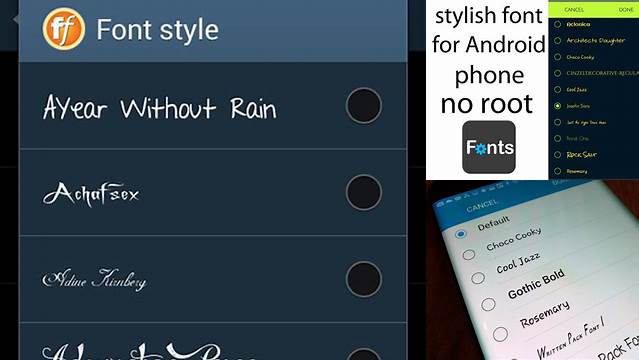
Free Fonts For Android: Download & Customize Your Phone
Introduction: Level Up Your Android with Awesome Free Fonts
Hey guys! Ever feel like your Android phone's default font is a little…meh? You're not alone! Customizing your phone is a super fun way to express yourself, and changing the font is one of the easiest and most impactful things you can do. In this article, we're diving deep into the world of free fonts for Android, showing you exactly how to find, download, and install them. We'll cover everything from the best font sources to step-by-step instructions, so you can give your phone a fresh new look in no time. Think of it as a mini-makeover for your digital life! The right font can seriously elevate your entire user experience, making everything from reading emails to browsing social media a little bit more enjoyable. Free fonts offer a fantastic way to inject personality and style into your device without spending a dime. Whether you're into sleek and modern designs, playful and quirky styles, or classic and elegant looks, there's a font out there for you. So, let's get started on this exciting journey of transforming your Android phone's typography and making it truly your own! We'll explore various options, discuss potential pitfalls, and provide practical tips to ensure a smooth and satisfying font-customization experience. Get ready to unleash your inner designer and give your Android a unique visual flair. Remember, the best part about downloading free fonts is the freedom to experiment and find the perfect match for your personality and style. So, let’s jump right in and explore the fantastic world of Android typography!
Why Customize Your Android Fonts?
Okay, so why even bother changing your font? It's a fair question! Customizing your Android fonts can make a huge difference in how you interact with your device every day. It's not just about aesthetics; it's about creating a personalized experience that reflects your unique style and preferences. Imagine being able to read your favorite articles in a font that's easy on your eyes and visually appealing, or crafting text messages that truly express your personality. Customizing fonts is more than just a cosmetic change; it's a way to make your phone feel more like you. Think about it – you change your wallpaper, your ringtone, even the case on your phone. Why not the font? A new font can breathe fresh life into your device, making it feel like you've upgraded without actually buying a new phone. It’s a simple yet powerful way to refresh your daily digital interactions. Beyond the aesthetic appeal, custom fonts can also improve readability. If you struggle with the default font, switching to a clearer, more legible option can make a world of difference. This is especially important for those who spend a lot of time reading on their phones, whether it's emails, e-books, or news articles. The right font can reduce eye strain and make reading a much more comfortable experience. Moreover, exploring free fonts allows you to express your individuality. Your phone is an extension of yourself, and the font you choose can be a subtle yet effective way to showcase your personality. Are you a fan of minimalist designs? There's a sleek, sans-serif font for that. Do you prefer a more whimsical and playful vibe? There are plenty of quirky and fun fonts to choose from. Customizing your fonts is a way to add a personal touch to your device and make it stand out from the crowd. Plus, let’s be honest, it's just plain fun to experiment with different fonts and see how they transform your phone’s look and feel! The possibilities are endless, and the best part is that you can change your font as often as you like, keeping your phone feeling fresh and exciting.
Where to Find Free Fonts for Android
Now that we've established why you should customize your fonts, let's talk about where to find those awesome free fonts for Android. The good news is, there are tons of resources available, from dedicated font apps to websites brimming with typography gold. But with so many options, it's important to know where to look and how to ensure you're downloading safe and high-quality fonts. One of the most convenient ways to find free fonts is through apps available on the Google Play Store. Apps like HiFont, iFont, and Fontasy offer a vast library of fonts that you can easily browse and install with just a few taps. These apps often have user-friendly interfaces and allow you to preview fonts before applying them, which is super helpful. However, it's crucial to read reviews and check the app's permissions before installing anything. Look for apps with good ratings and a large number of downloads, and be wary of apps that request excessive permissions. Another fantastic resource is the world wide web! Websites like Google Fonts, Dafont, and Fontspace are treasure troves of free fonts, offering a diverse range of styles and designs. Google Fonts, in particular, is an excellent choice because it provides high-quality, open-source fonts that are optimized for web and mobile use. Dafont and Fontspace are also great options, but it's essential to exercise caution when downloading from these sites. Always download fonts from reputable sources and be sure to scan any downloaded files with a virus scanner before installing them. When browsing font websites, pay attention to the licensing information. Most free fonts are licensed for personal use, but some may have restrictions on commercial use. If you plan to use a font for anything beyond personal projects, make sure you understand the licensing terms. Additionally, consider joining online communities and forums dedicated to typography and design. These communities are often a great place to discover new fonts, get recommendations, and even find hidden gems that you might not come across otherwise. Members often share their favorite fonts and provide feedback on the quality and usability of different options. Remember, finding the perfect free font is a bit like treasure hunting – it takes a little exploration, but the reward of a beautifully customized Android phone is definitely worth the effort!
Best Practices for Choosing and Using Fonts
Choosing the right font is about more than just picking something that looks cool. It's about selecting a font that's both aesthetically pleasing and functional. A great font can enhance your phone's user experience, while a poorly chosen font can be distracting and even difficult to read. So, what are some best practices to keep in mind when selecting and using fonts on your Android device? First and foremost, consider readability. A beautiful font is useless if you can't easily read it. Look for fonts that have clear, well-defined characters and sufficient spacing. Avoid fonts that are overly stylized or have thin, delicate strokes, as these can be difficult to read on small screens. Think about the overall style and tone you want to convey. Different fonts evoke different emotions and associations. A sleek, sans-serif font might be perfect for a professional or modern look, while a playful, handwritten font might be better suited for a more casual or creative vibe. Choose a font that aligns with your personality and the way you use your phone. It’s also a good idea to consider the font's legibility across different sizes. Some fonts look fantastic at large sizes but become blurry or illegible when scaled down. Before applying a font system-wide, preview it in different sizes to make sure it remains readable. Pay attention to the font's kerning and leading. Kerning refers to the spacing between individual letters, while leading is the spacing between lines of text. A well-designed font will have consistent kerning and leading, making the text look balanced and easy to read. Avoid fonts with inconsistent spacing, as this can make the text look cluttered and unprofessional. Don't be afraid to experiment, but also don't overdo it. It's tempting to try out every font you come across, but too much variety can create a chaotic and disjointed look. Stick to a few fonts that you really love and use them consistently throughout your device. Also, keep in mind that less is often more. A clean, simple font can be just as effective as a more elaborate one. And finally, remember that font customization is a personal preference. What looks good to one person might not appeal to another. The most important thing is to choose a font that you enjoy using and that makes your phone feel more like you. So, have fun exploring free fonts, experiment with different styles, and find the perfect typography to express your unique personality!
Conclusion: Embrace the Freedom of Font Customization
So, there you have it! We've covered everything you need to know about free fonts download for Android phone, from finding the perfect font to installing it and troubleshooting common issues. Customizing your fonts is a fantastic way to personalize your device, improve readability, and express your unique style. It's a simple yet powerful way to make your phone feel more like you. Remember, the world of Android typography is vast and exciting. There are countless fonts to choose from, each with its own unique personality and charm. Don't be afraid to explore, experiment, and have fun! Try out different styles, mix and match fonts, and see how they transform your phone's look and feel. Whether you're into sleek and modern designs, playful and quirky styles, or classic and elegant looks, there's a font out there for you. And with so many free fonts available, you can easily find the perfect typography without spending a dime. We've discussed the importance of choosing readable fonts, considering the overall style and tone, and paying attention to kerning and leading. These best practices will help you select fonts that are not only aesthetically pleasing but also functional and easy to read. We've also walked you through the process of downloading and installing fonts using various methods, from font apps to manual installation. We've covered common troubleshooting issues and provided tips on how to resolve them. With the knowledge and tools you've gained from this article, you're well-equipped to embark on your font customization journey. So, go ahead, unleash your inner designer and give your Android phone a fresh new look. Embrace the freedom of font customization and make your device a true reflection of your personality and style. Happy font hunting, guys! We hope you find the perfect fonts to make your Android experience even more enjoyable and personalized.